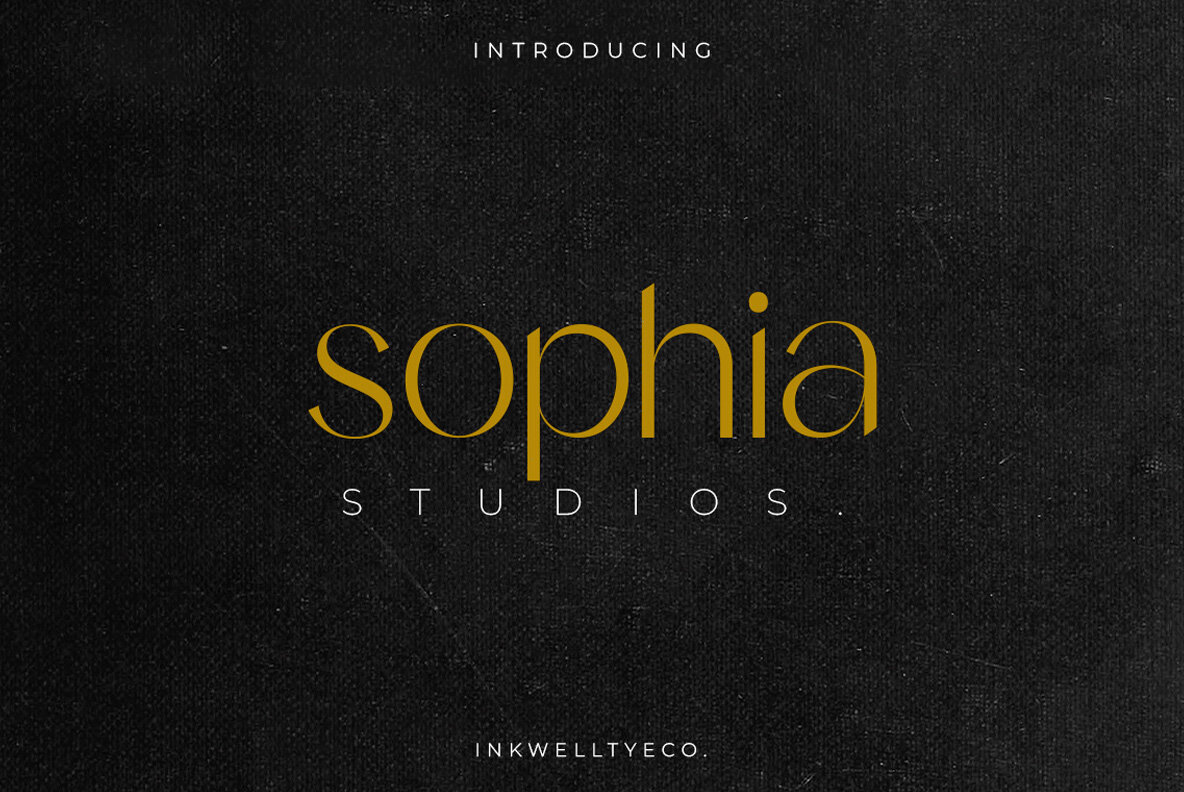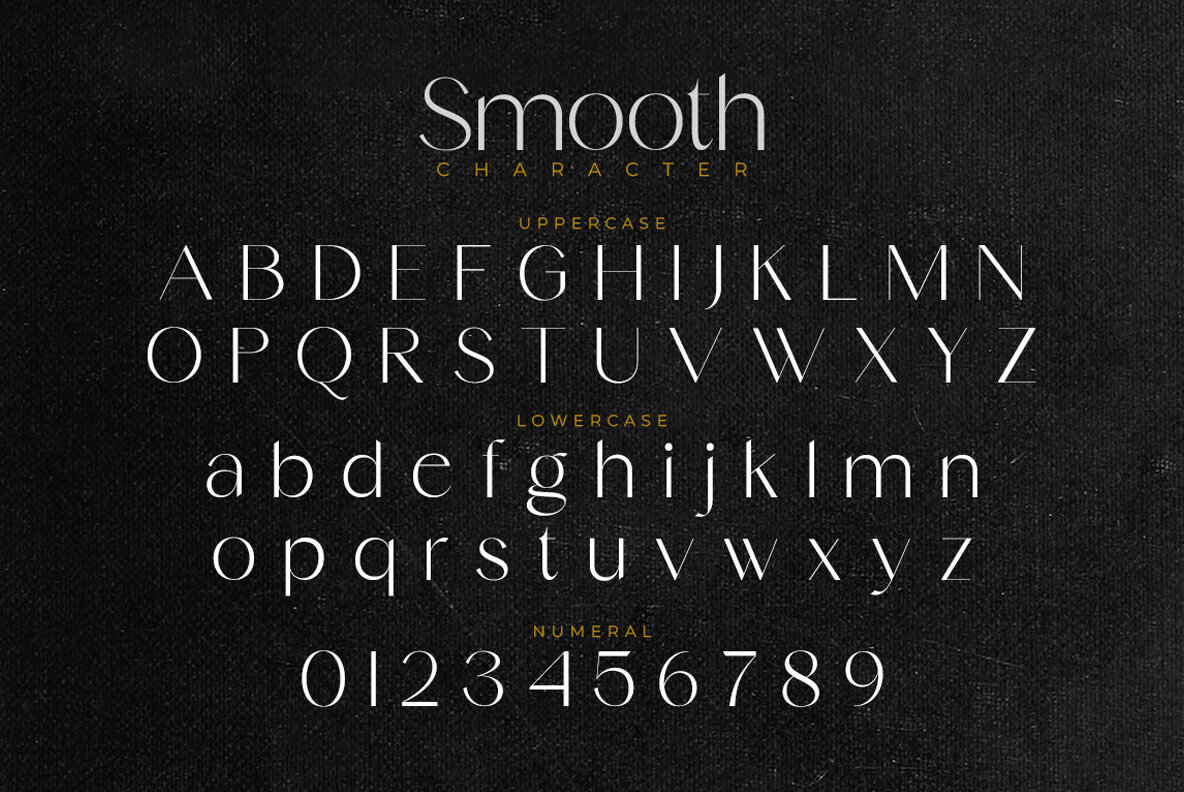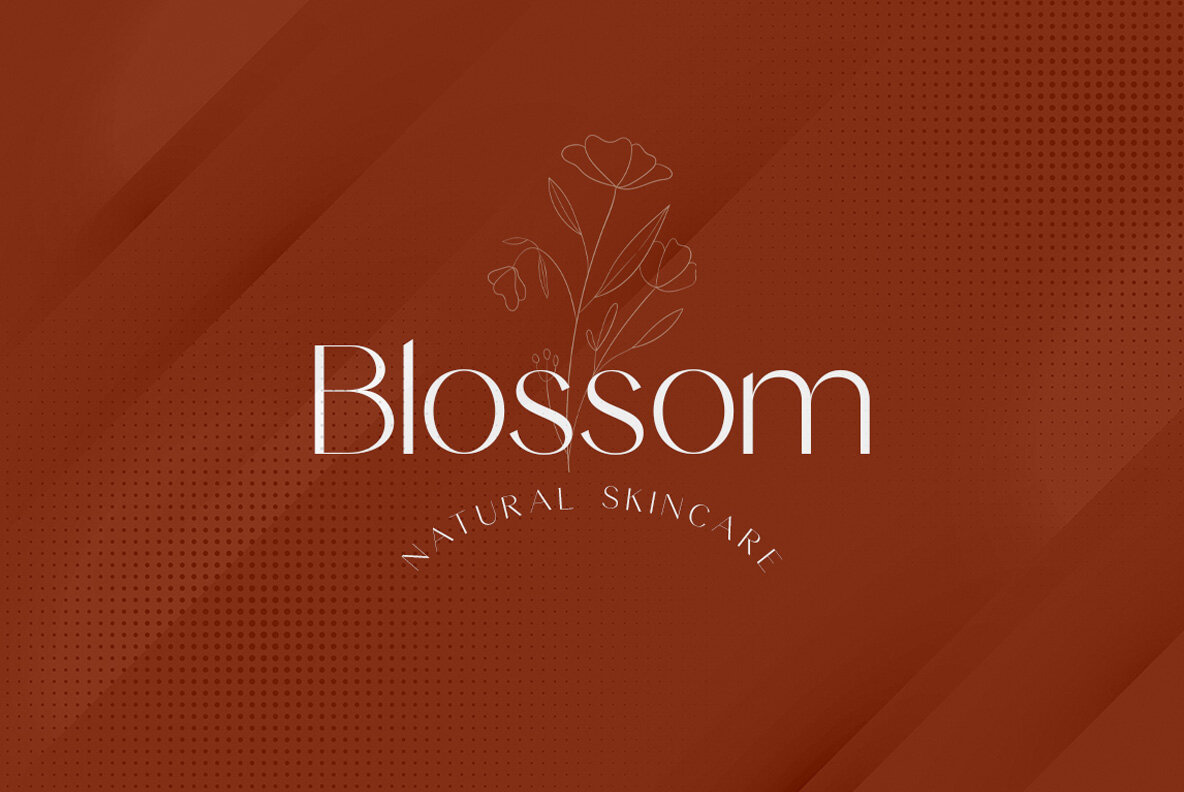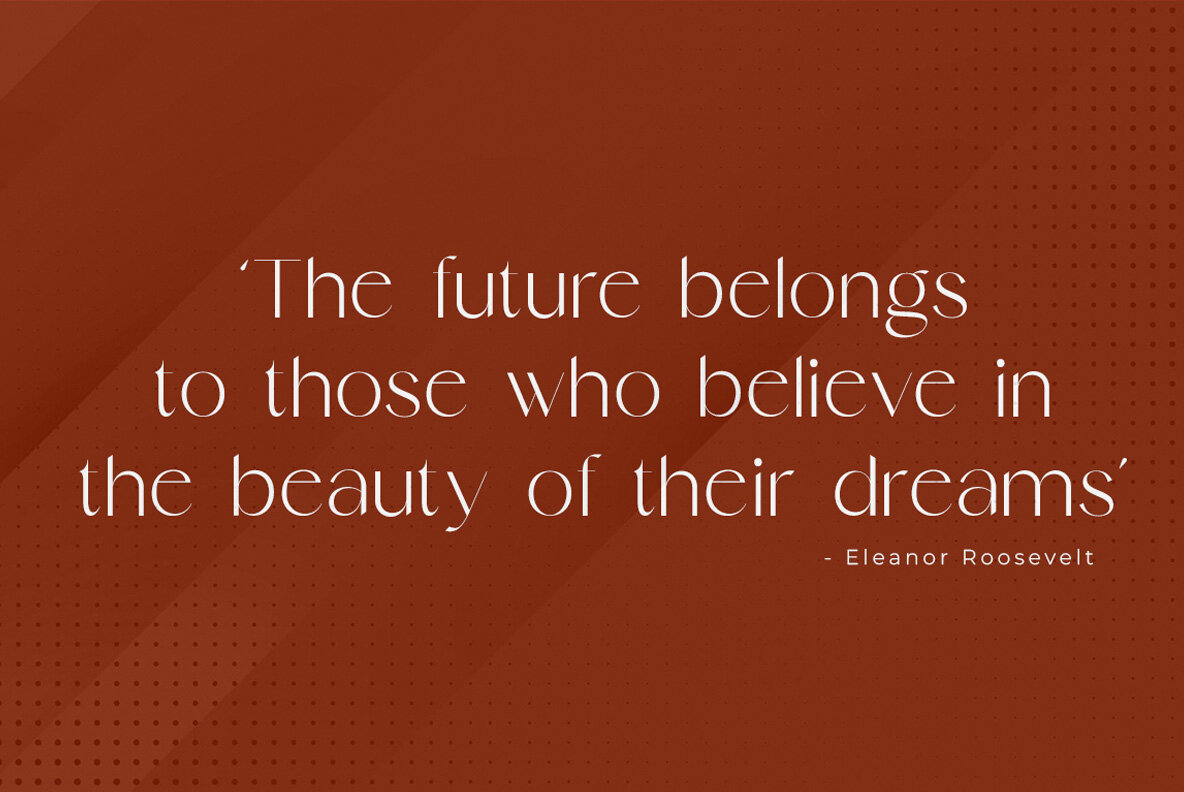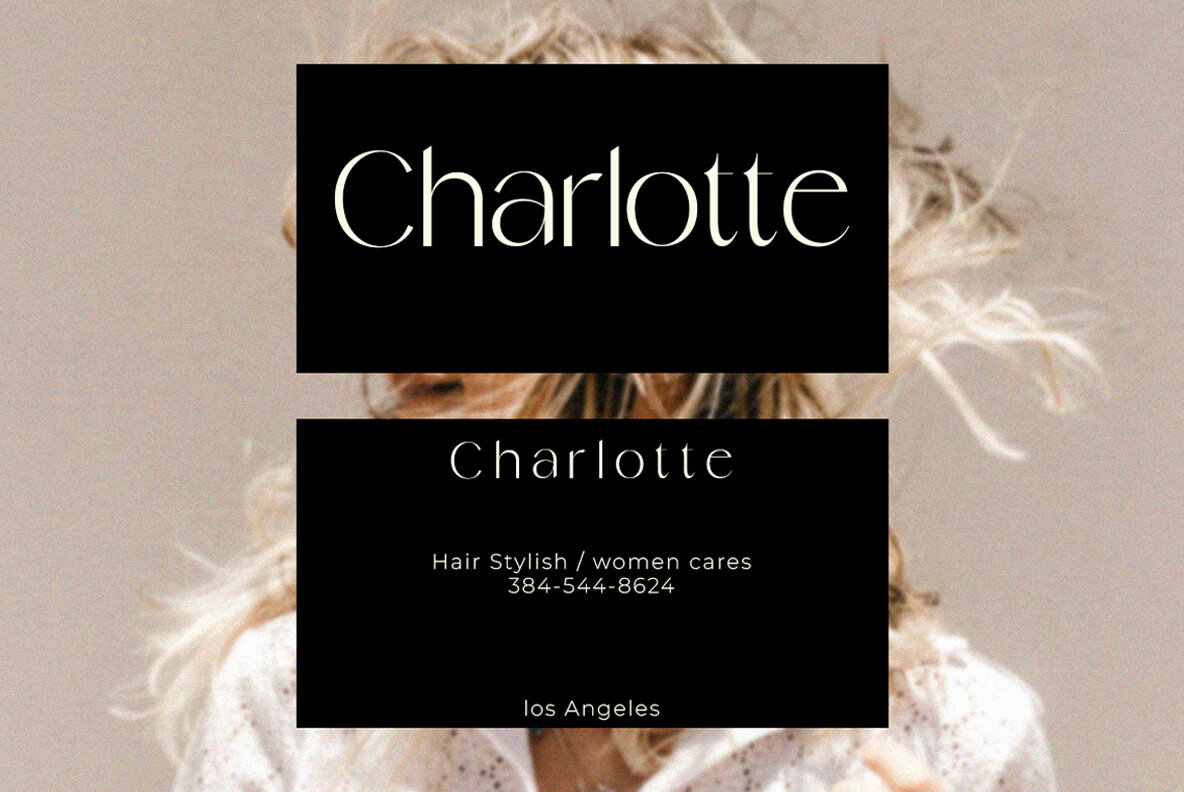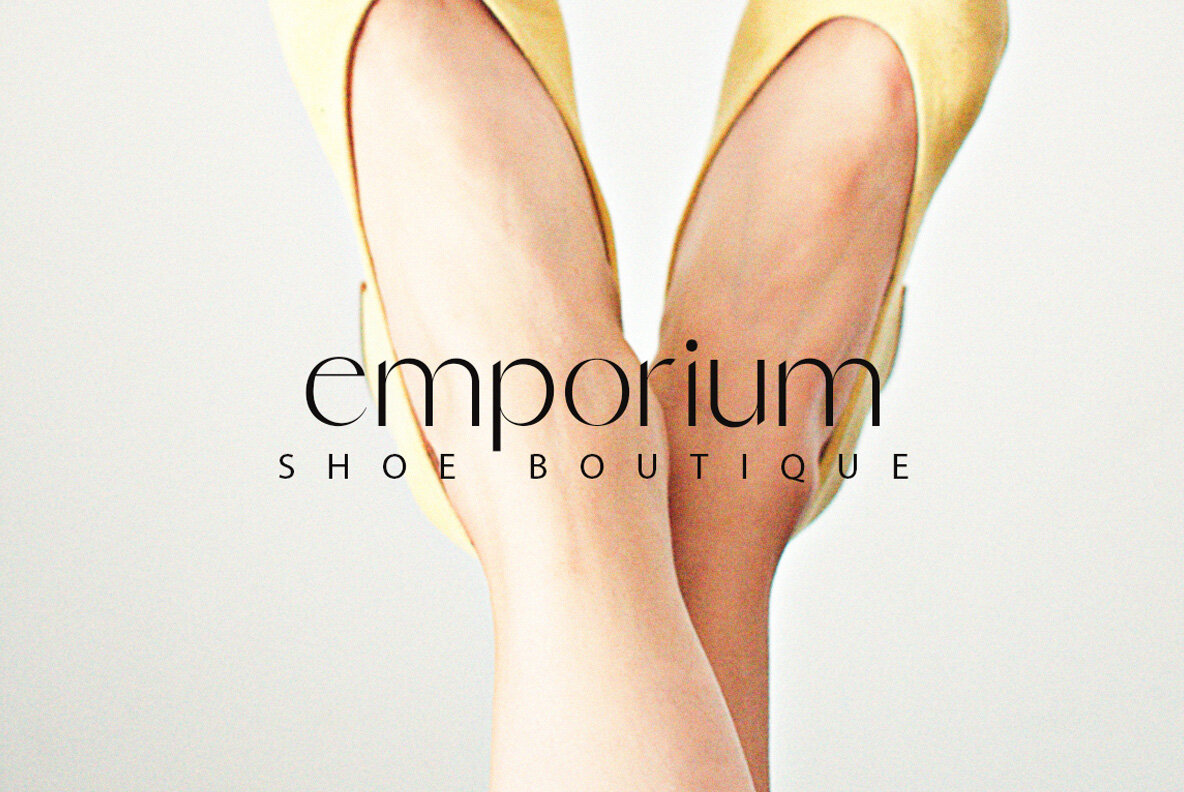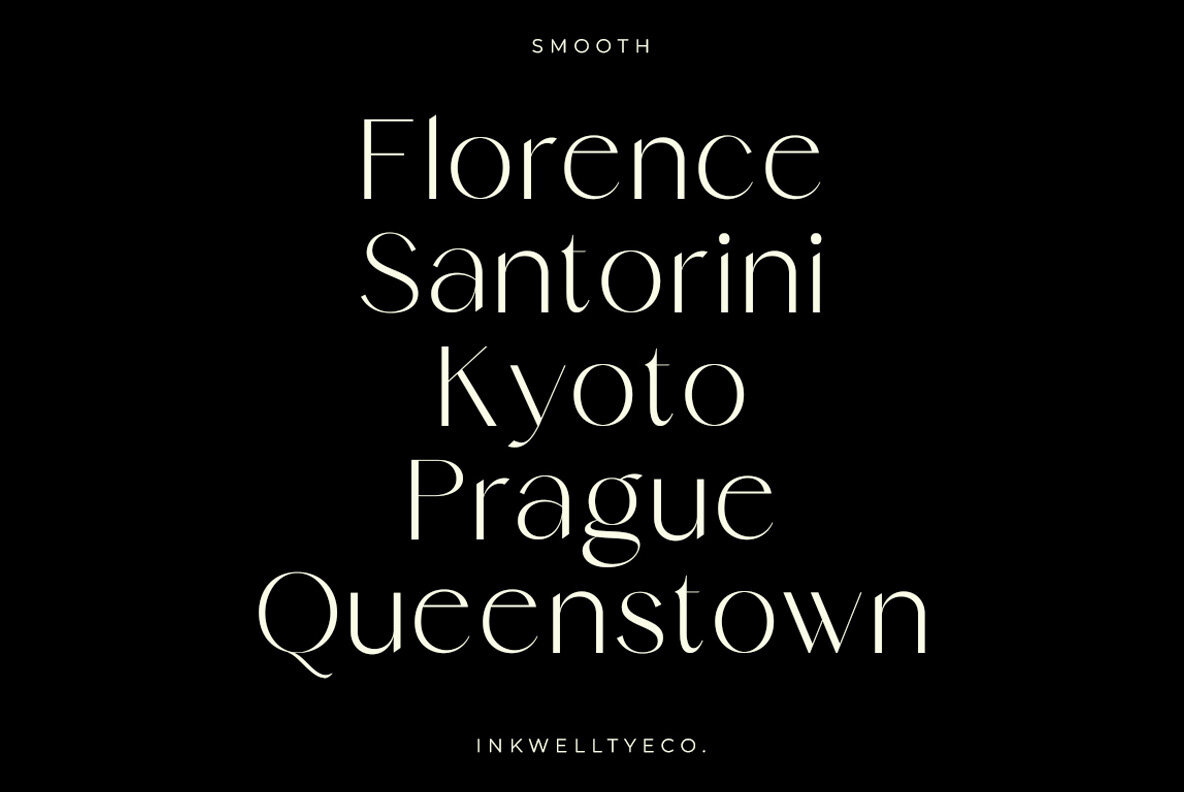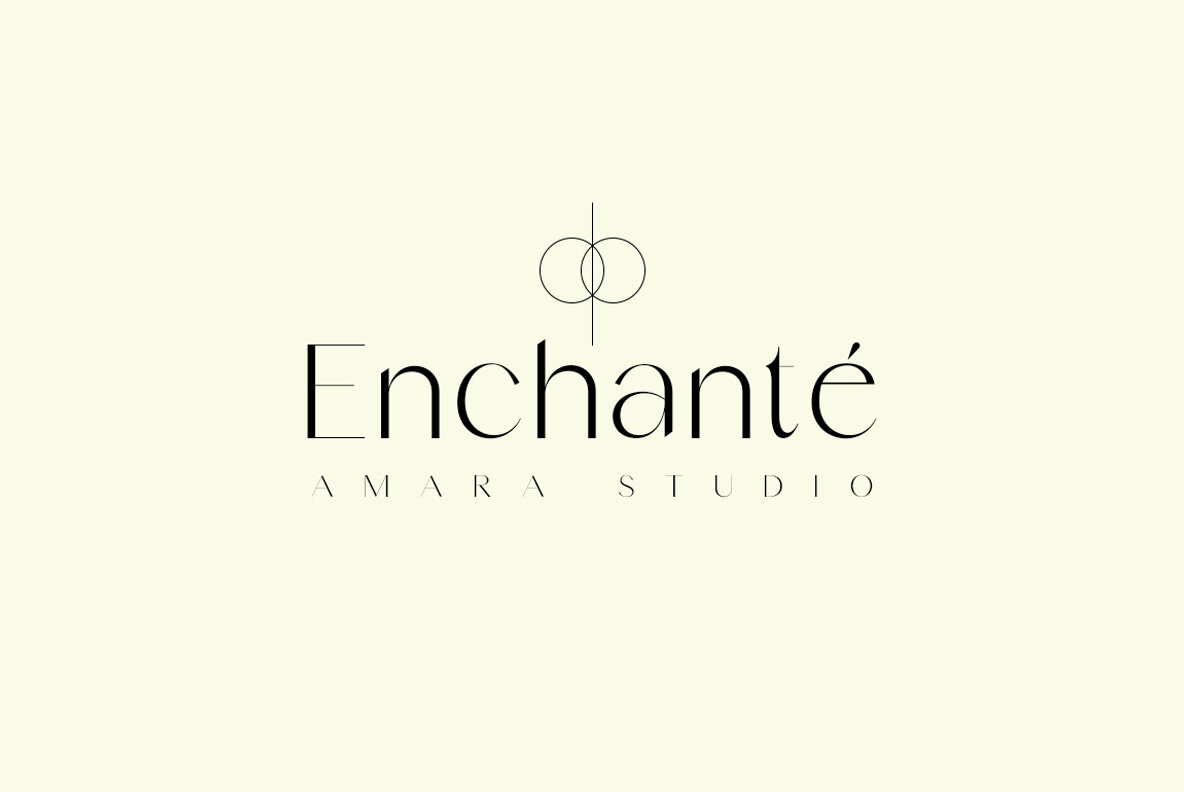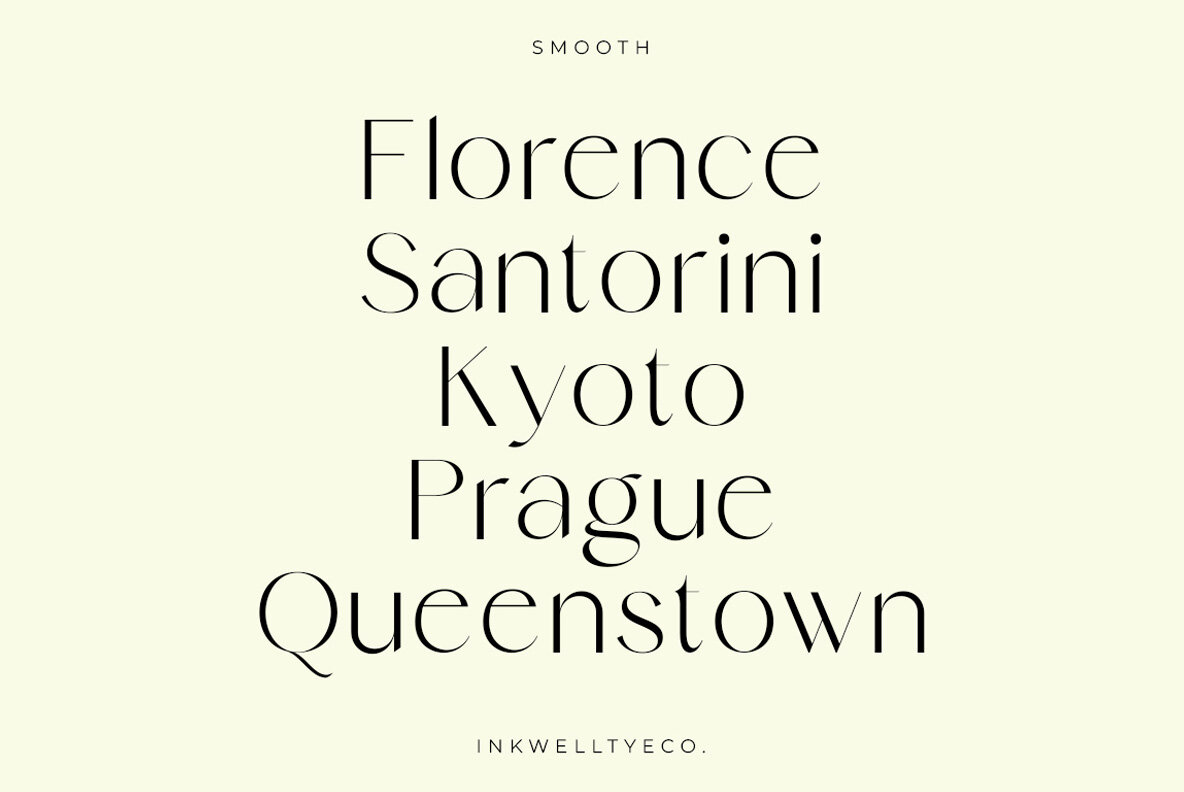
Smooth Font
Smooth Regular
"Smooth" is a font that carries the theme of cleanliness and luxury. This font combines simplicity of design with a touch of glamor that creates an elegant and charming look. In the Smooth font, each letter is rendered with great clarity and smooth lines. Simple, regular typefaces give a clean, organized feel, ensuring good legibility. Proportion that is proportional and harmonious is also considered carefully.